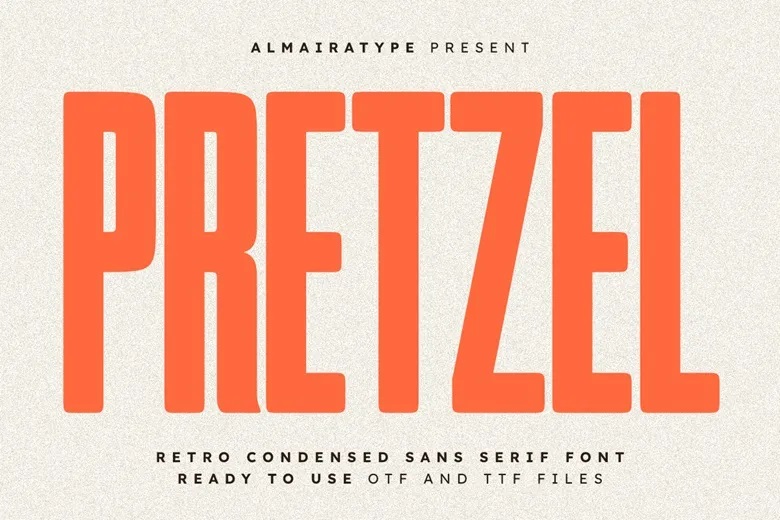
Pretzel Font
Pretzel is a bold, eye-catching retro condensed sans-serif font designed to add vintage warmth to your modern projects. Its tall, narrow shape and smooth, rounded edges blend retro nostalgia with a clean, modern look. Pretzel is a great pick for graphic designers, custom apparel brands, crafters, and Print-on-Demand sellers who want their products to stand out. Use it to brand a cafe, design t-shirts, craft headlines, or create bold social media posts.
Pretzel is easy to read and gives your work a cool, professional style. Its thick, balanced style is popular with craft fans who use vinyl-cutting machines like Cricut and Silhouette, since it cuts cleanly and is easy to work with. Add Pretzel to your design toolkit to give your brand a friendly, bold, and timeless look.
Pretzel Sans Serif Font